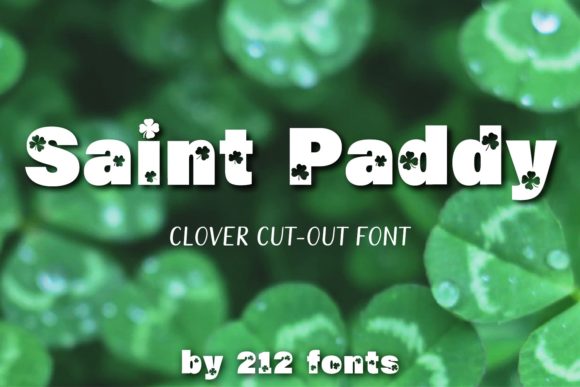
Looking for the best font for kids to read? Look no further than Saint Paddy Font! Created by the talented designers at 212 Fonts, Saint Paddy is a fun and bold display font that's sure to catch your eye.
This font is perfect for St. Patrick's Day and Ireland projects, with clovers and shamrocks cut out of each letter. But it's also versatile enough to be used for a variety of other designs, whether you're creating a fun poster for a kid's room or designing an eye-catching logo for your business.
Not only is Saint Paddy Font visually appealing, but it's also incredibly easy to read. The clean lines and bold shapes make it perfect for young readers who are just starting to learn how to read. And because it's so fun and playful, kids will actually enjoy reading the text, making it a great way to encourage them to read more.
But Saint Paddy Font isn't just for kids - it's also a great choice for anyone who wants to add a touch of whimsy and fun to their designs. Whether you're creating a flyer for a St. Patrick's Day event or designing a playful logo for your business, Saint Paddy Font is sure to make your designs stand out.